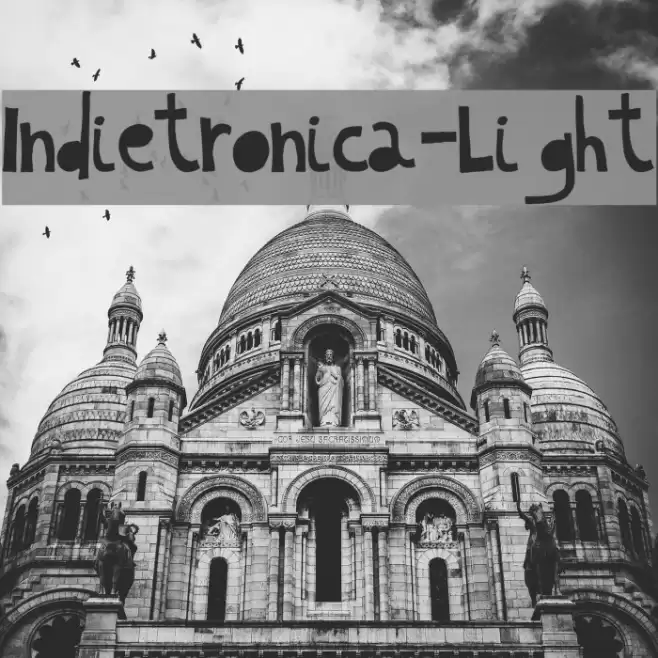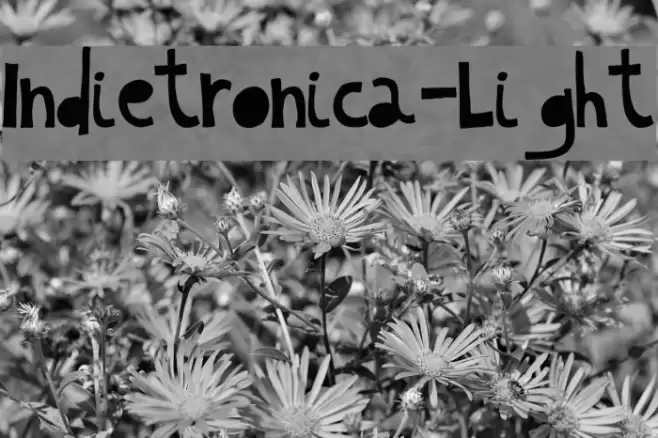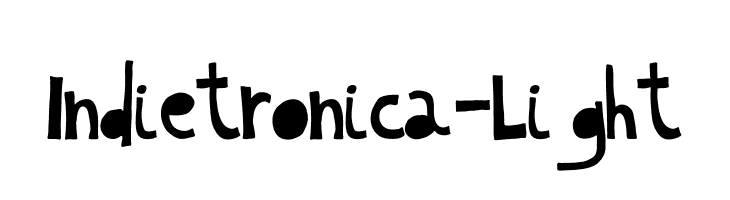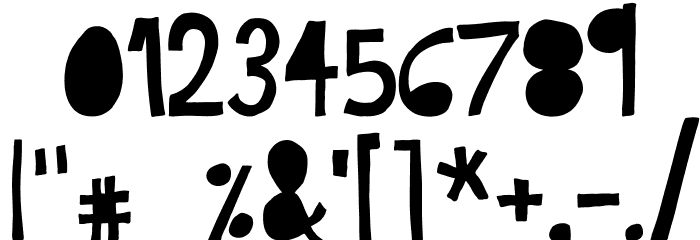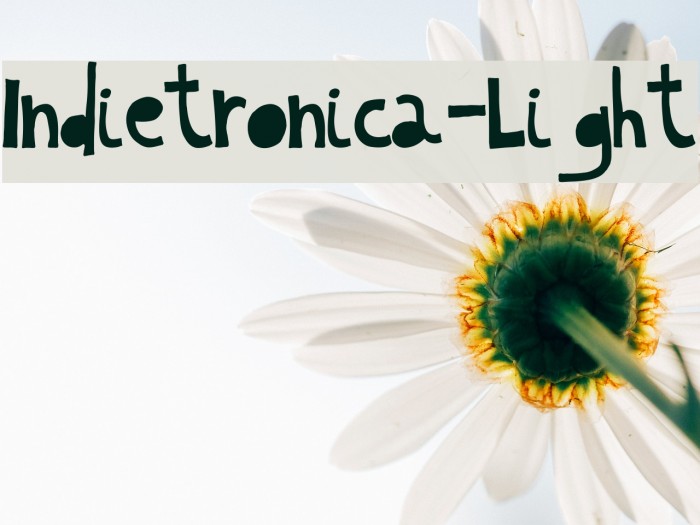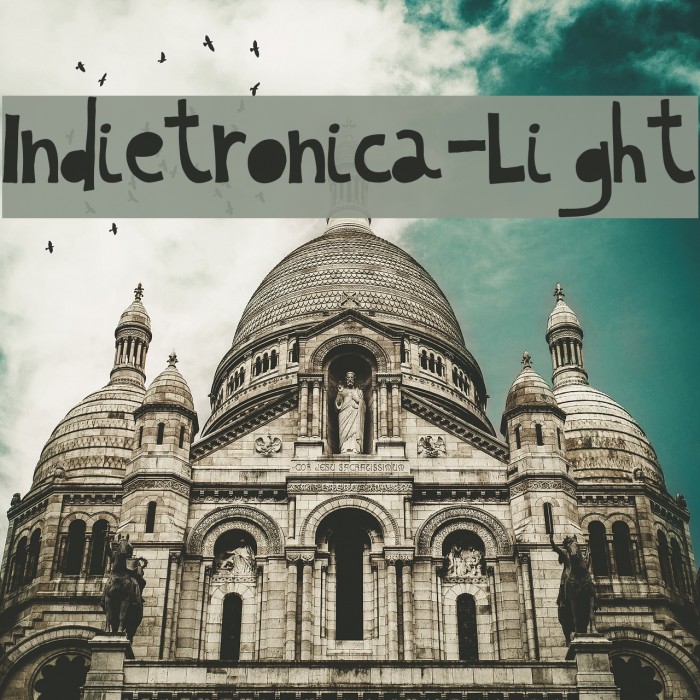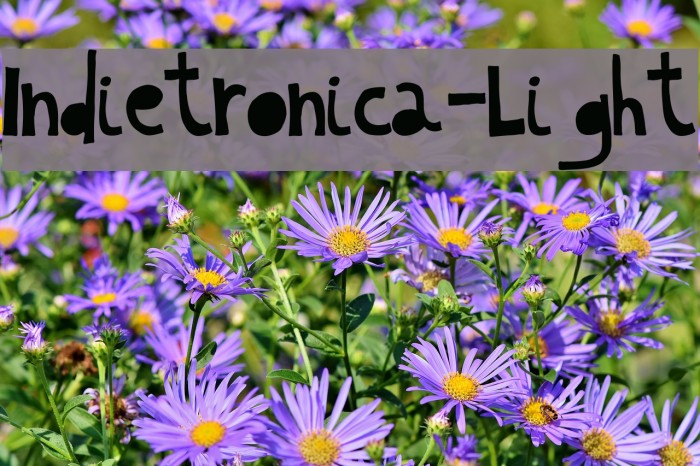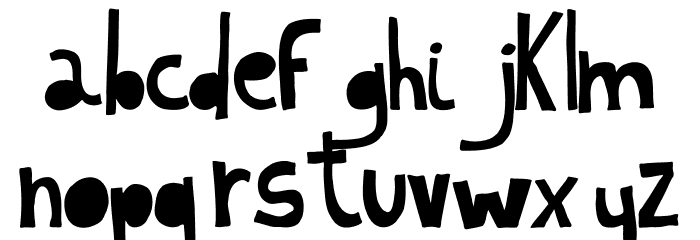
Indietronica-Light Font
Indietronica-Light Description
This font features a playful and quirky design with irregular, hand-drawn letterforms. The uppercase letters are bold and slightly uneven, giving a whimsical and artistic feel. The lowercase letters maintain this playful style, with some characters having exaggerated curves and angles. The numbers are bold and rounded, complementing the overall style. Special characters are creatively designed, adding to the font's unique personality. This font is ideal for projects that require a fun and informal touch.
A playful, hand-drawn font with bold, irregular letterforms from Uncategorized fonts.
- Proposed Projects: Ideal for children's books, creative posters, and playful branding projects.